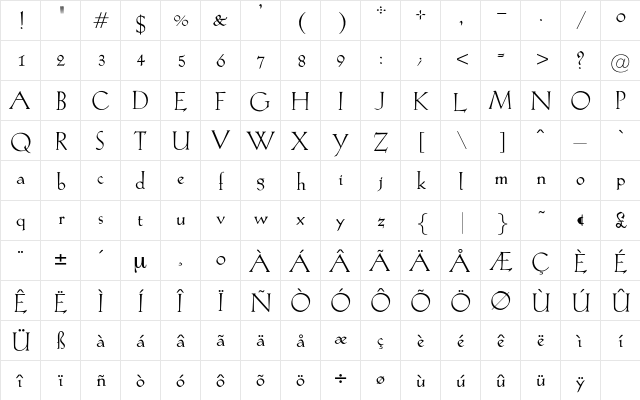
AliceLight Regular
Design Context for AliceLight Typeface
AliceLight offers clean, dependable letterforms without strong stylistic allegiance, making it a practical choice for designers who need flexibility. The delicate stroke weight brings airiness and refinement to layouts.